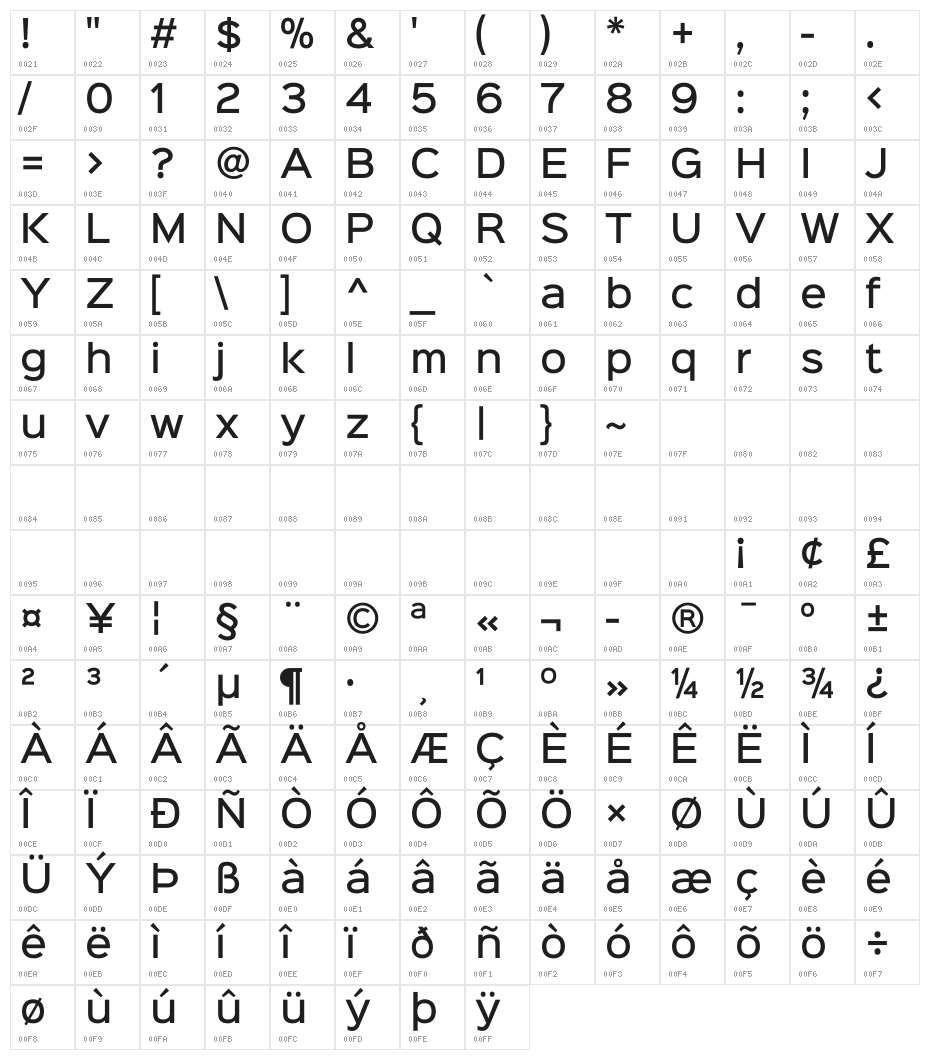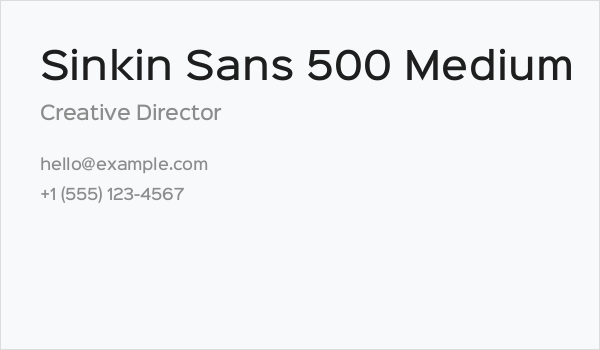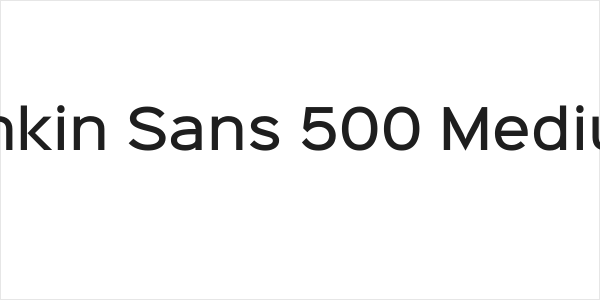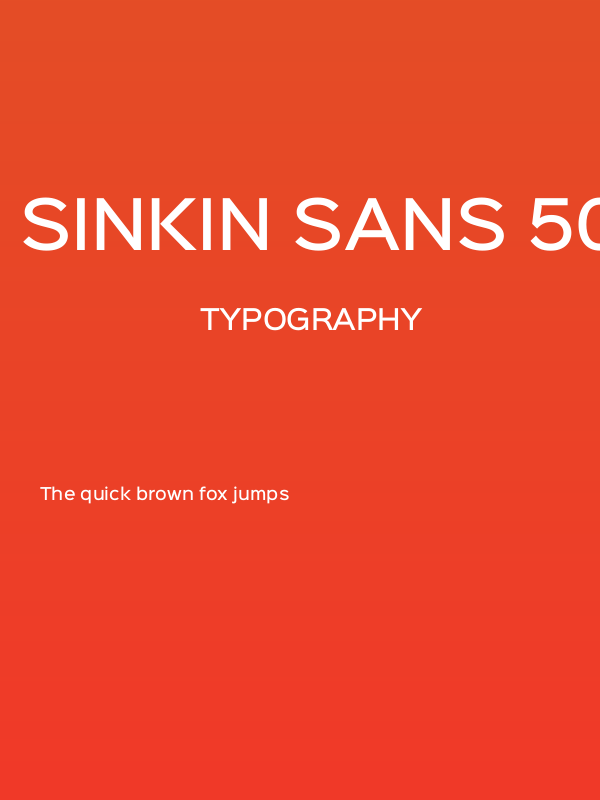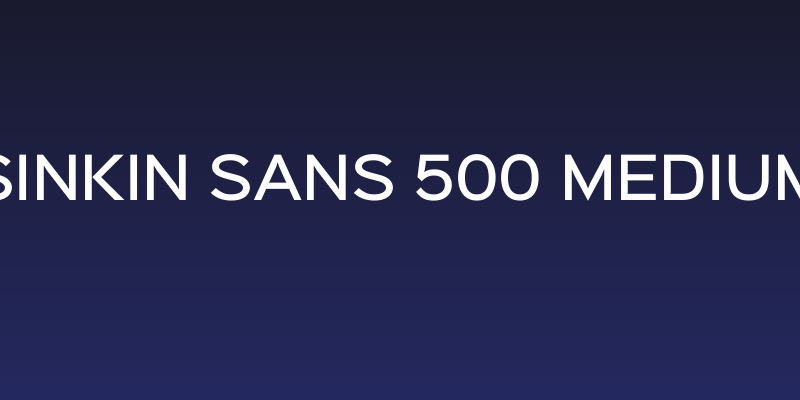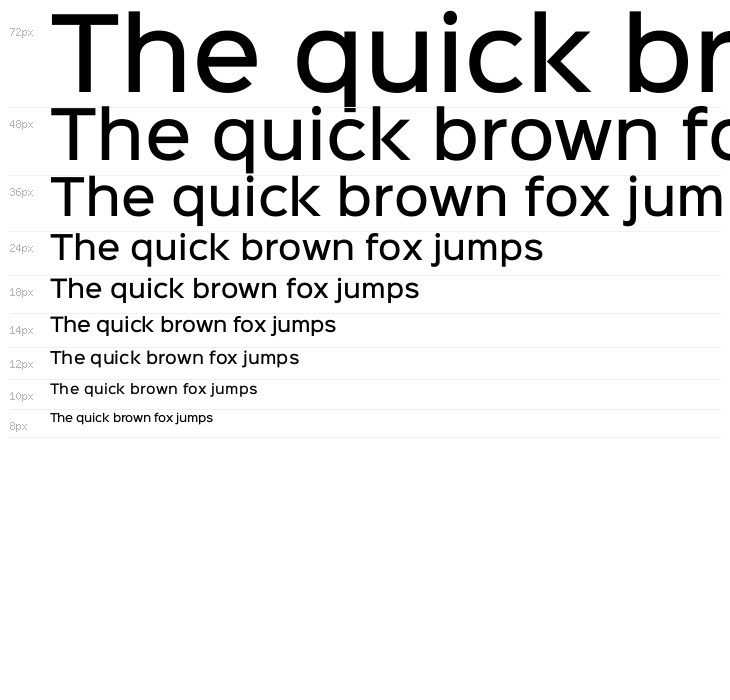
Sinkin Sans 500 Medium Font
Sinkin Sans 500 Medium Description
This font features a clean and modern sans-serif design with a medium weight, offering a balanced appearance that is both professional and approachable. The characters are well-proportioned with a consistent stroke width, providing a harmonious and uniform look. The uppercase letters are bold and assertive, while the lowercase letters maintain a friendly and accessible feel. The numerals are clear and easy to read, making them suitable for various applications. Special characters are designed with simplicity and clarity in mind, ensuring they complement the overall aesthetic. This font is versatile and can be used in a wide range of design projects.
| Proposed Projects | Ideal for branding, web design, advertising, and editorial projects. |